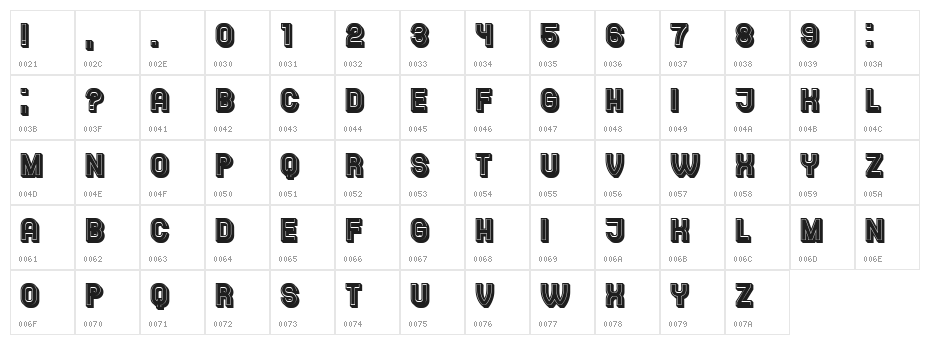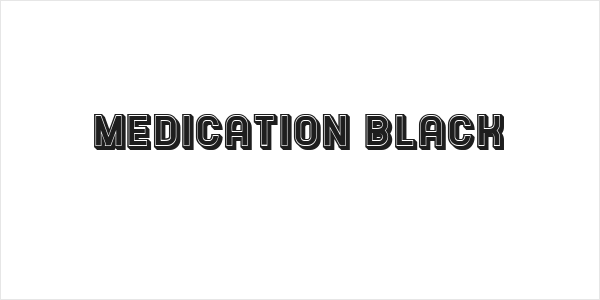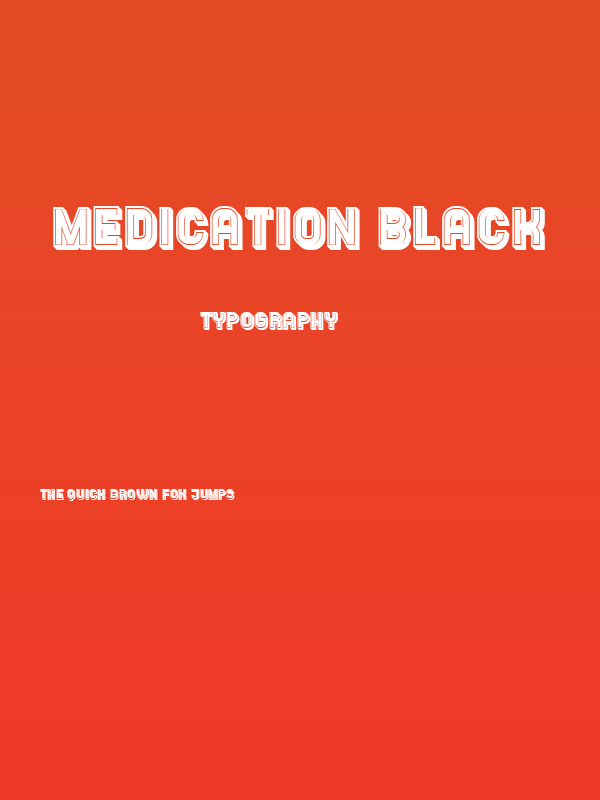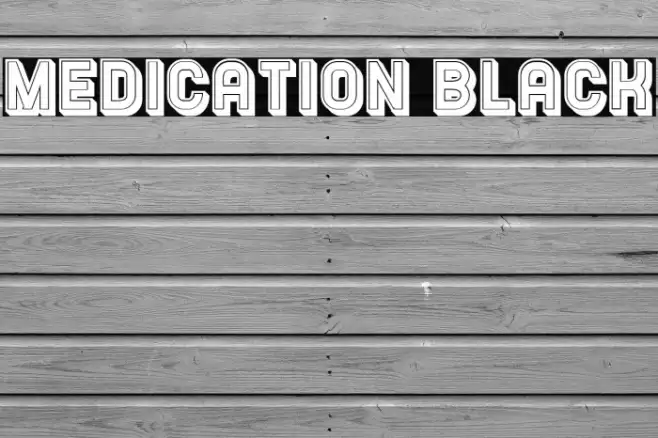
Medication Black Font
Medication Black Description
This font features a bold, geometric design with a distinct outline that creates a striking visual impact. The characters are uppercase and numerals, each with a thick, uniform stroke that emphasizes their blocky, modern aesthetic. The font's style is reminiscent of retro or vintage signage, yet it maintains a contemporary feel due to its clean lines and structured form. The spacing between characters is normal, allowing for clear readability while maintaining its decorative appeal. This font's high contrast between the thick strokes and the negative space within the characters enhances its legibility and makes it suitable for attention-grabbing designs.
| Proposed Projects | This font is perfect for projects that require a bold statement, such as posters, logos, headlines, and branding materials. Its unique style can also be used in retro-themed designs or modern digital interfaces. |